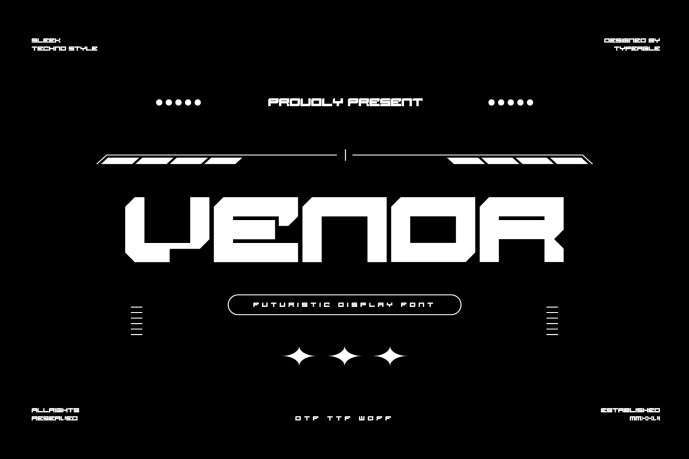
Venor – Futuristic Display Font
Venor – Futuristic Display Font is a bold and futuristic font designed to evoke a sense of innovation and technological advancement. Featuring sharp, angular edges and a sleek, minimalist style, Venor is perfect for projects that require a modern, high-tech aesthetic. Its clean lines and geometric shapes create a dynamic and forward-thinking vibe, making it an ideal choice for digital interfaces, branding, and sci-fi themed designs.